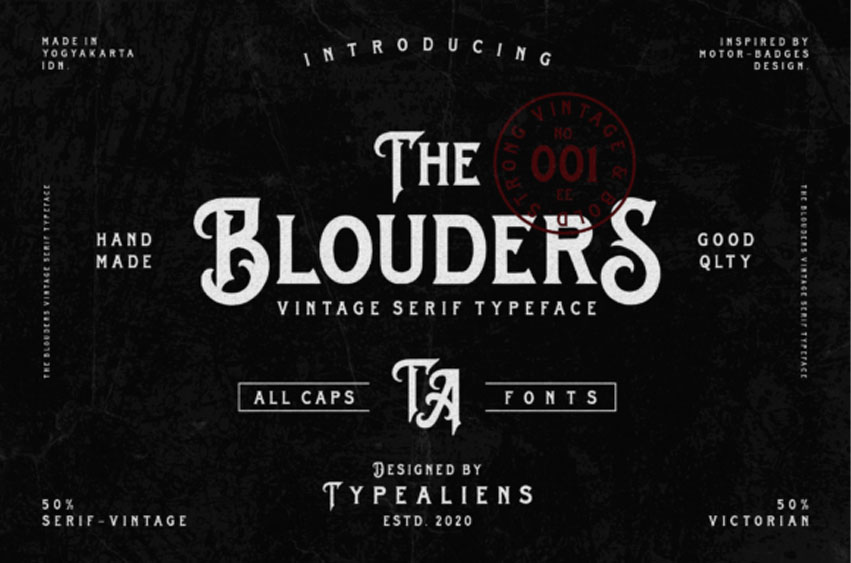
The Blouders Font
The Blouders Font Ride into the golden age of design with The Blouders, a rugged display serif that captures a “rebellious-and-vintage” soul. Inspired by classic motor-badge design and Victorian typography, this typeface features bold, flared serifs and intricate spurred details that exude handmade quality.
With its heavy weight and rhythmic, old-school aesthetic, The Blouders is the premier choice for independent custom motorcycle shops, craft brewery branding, barbershop identities, and high-impact “heritage-garage” social media headers.